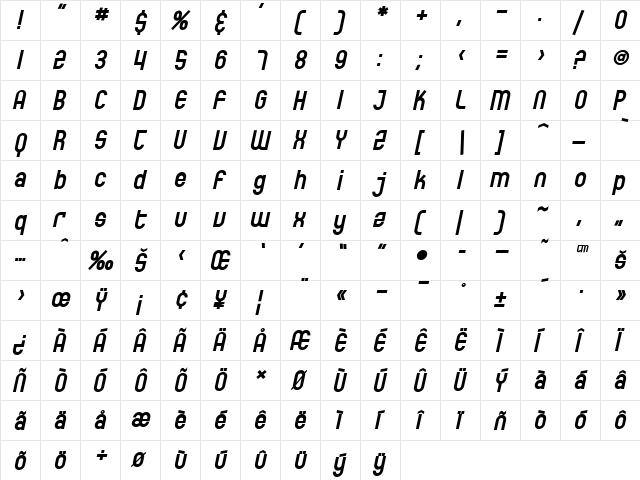
SF Eccentric Opus Bold Oblique
Design Context for SF Eccentric Opus Typeface
SF Eccentric Opus offers clean, dependable letterforms without strong stylistic allegiance, making it a practical choice for designers who need flexibility. The dynamic lean of this cut emphasises speed and emphasis in any layout. Its bold stroke weight gives it real presence on the page.
Pro Tip: Use SF Eccentric Opus for emphasis, pull quotes, and subheadings where its slanted energy can add rhythm to the layout.